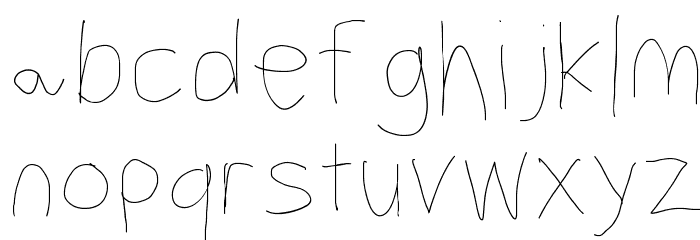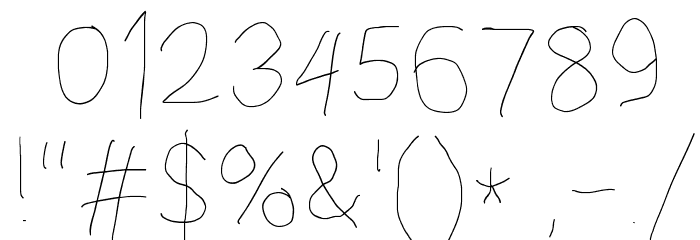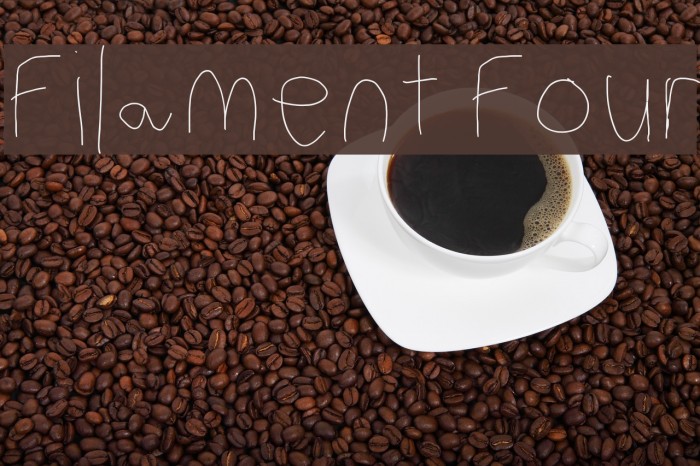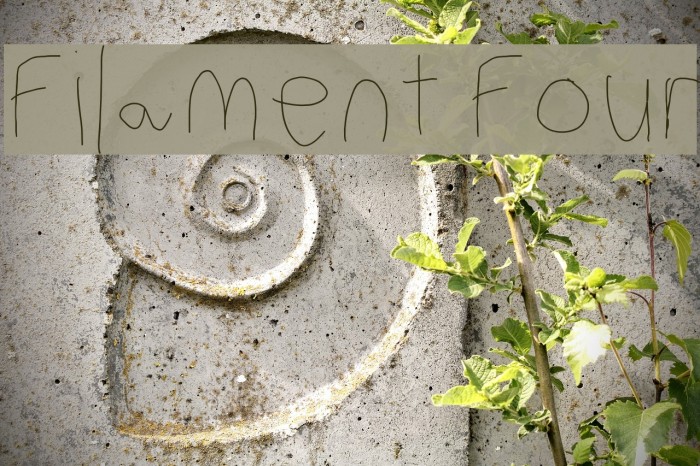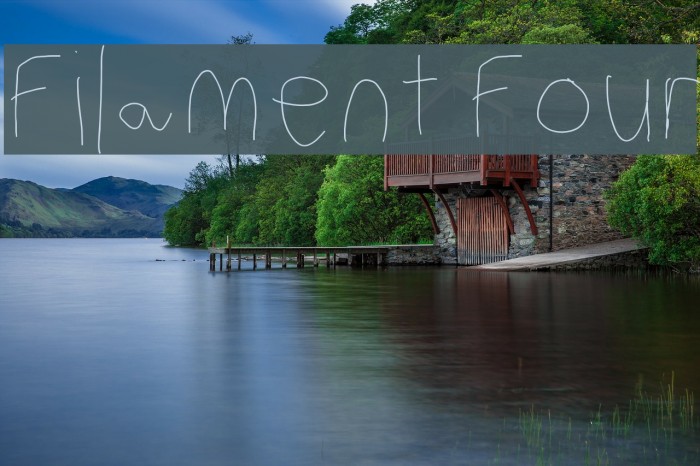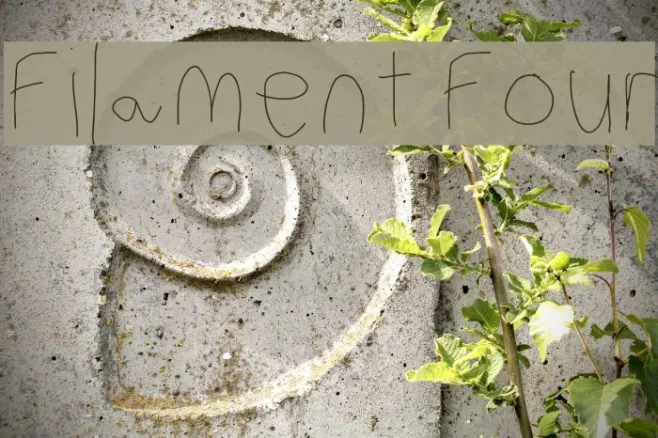
Filament Four Font
This font features a playful, handwritten style with thin, uneven strokes that give it a casual and informal appearance. The characters are slightly irregular, adding a whimsical touch, while maintaining legibility. The uppercase and lowercase letters are distinct, with the lowercase letters having a more rounded and softer look. Numbers and special characters follow the same playful style, making this font suitable for creative projects. The overall design is light and airy, with a sense of spontaneity and creativity.
A playful, handwritten font with thin, uneven strokes and a casual style.
- Proposed Projects: Ideal for children's books, creative invitations, casual branding, and playful social media graphics.
- Overall Style: Casual, Playful
- Use Case: Headlines, Informal Text, Creative Projects